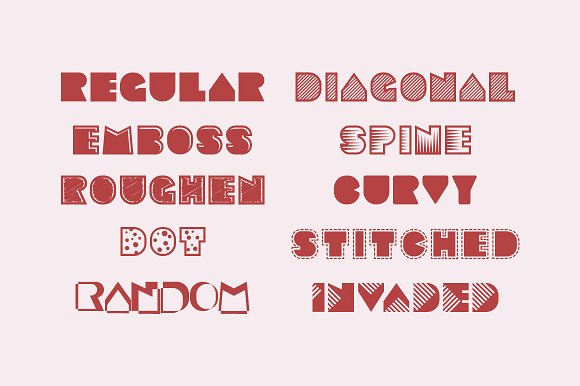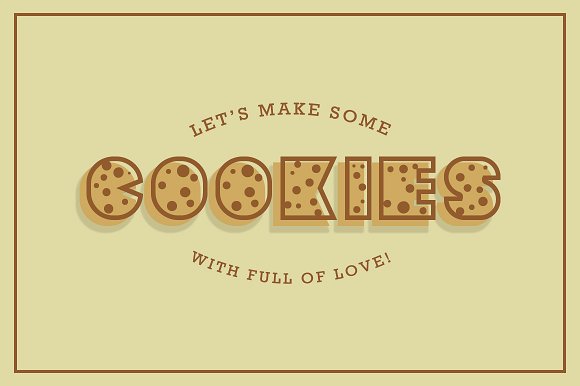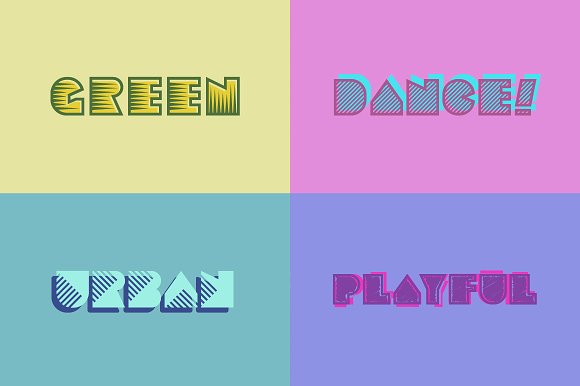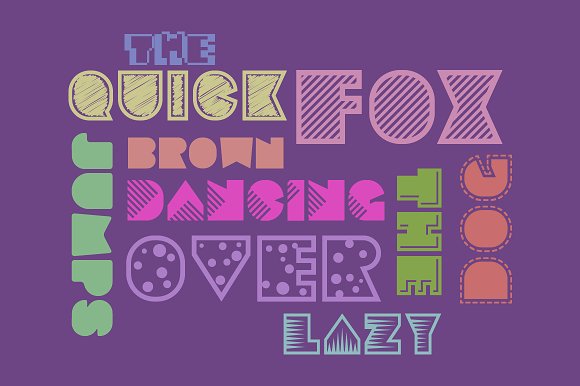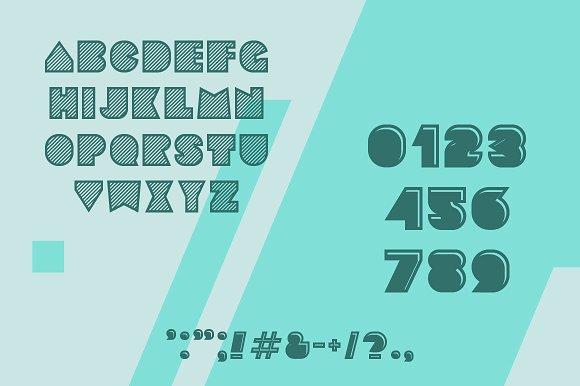
Introduction to Sebasengan Font
As a designer, you’ve probably experienced that moment when your creative project is stuck, and you’re searching for the perfect font to bring it to life. You scroll through your design resource collection, and suddenly, you stumble upon a hidden gem – the Sebasengan Font pack. This family of 10 fonts with distinct styles has been a game-changer for many designers, offering endless possibilities to mix and match.
With its high-quality design, the Sebasengan Font pack is a treasure trove of creative freedom. Whether you’re working on a project with a transparent background or need a font that makes a statement, this versatile font pack has got you covered. And the best part? It’s available for a free download, making it an invaluable resource for designers of all levels.
Key Features of Sebasengan Font
- High-quality design resource for creative projects, available for free download
- Sebasengan Font offers a unique, stylish aesthetic with a transparent background, ideal for modern designs
- Includes a range of characters, including uppercase and lowercase letters, numbers, and punctuation marks
Honest Review: Sebasengan Font
I recently had the chance to experiment with the Sebasengan Font, and I must say, it’s been a delightful experience. As a designer, I’m always on the lookout for high-quality design resources that can elevate my creative projects.
Here are some things that work well with Sebasengan Font: ✨
- High-quality typography: The font is crisp and clear, making it perfect for various design applications.
- Transparent background: This feature is super useful for designers who need to work with transparent backgrounds or overlays.
However, there are some limitations to consider: ⚠️
- Limited character set: The font may not have the full range of characters you need for a specific project.
- No bold or italic styles: While the font looks great in regular weight, it would be nice to have more stylistic options.
Overall, I’m impressed with the Sebasengan Font’s potential. It’s a solid choice for designers looking for a high-quality, free font to use in their creative projects. While it may have some limitations, it’s definitely worth checking out.
Sebasengan Font is a high-quality design resource that offers a unique and creative way to enhance your visual content. With its transparent background, this font is perfect for adding a touch of elegance to your projects.
Sebasengan Font is perfect for creative projects, such as graphic design, web design, and social media graphics. Use it to add a touch of elegance to your designs and make them stand out from the crowd.